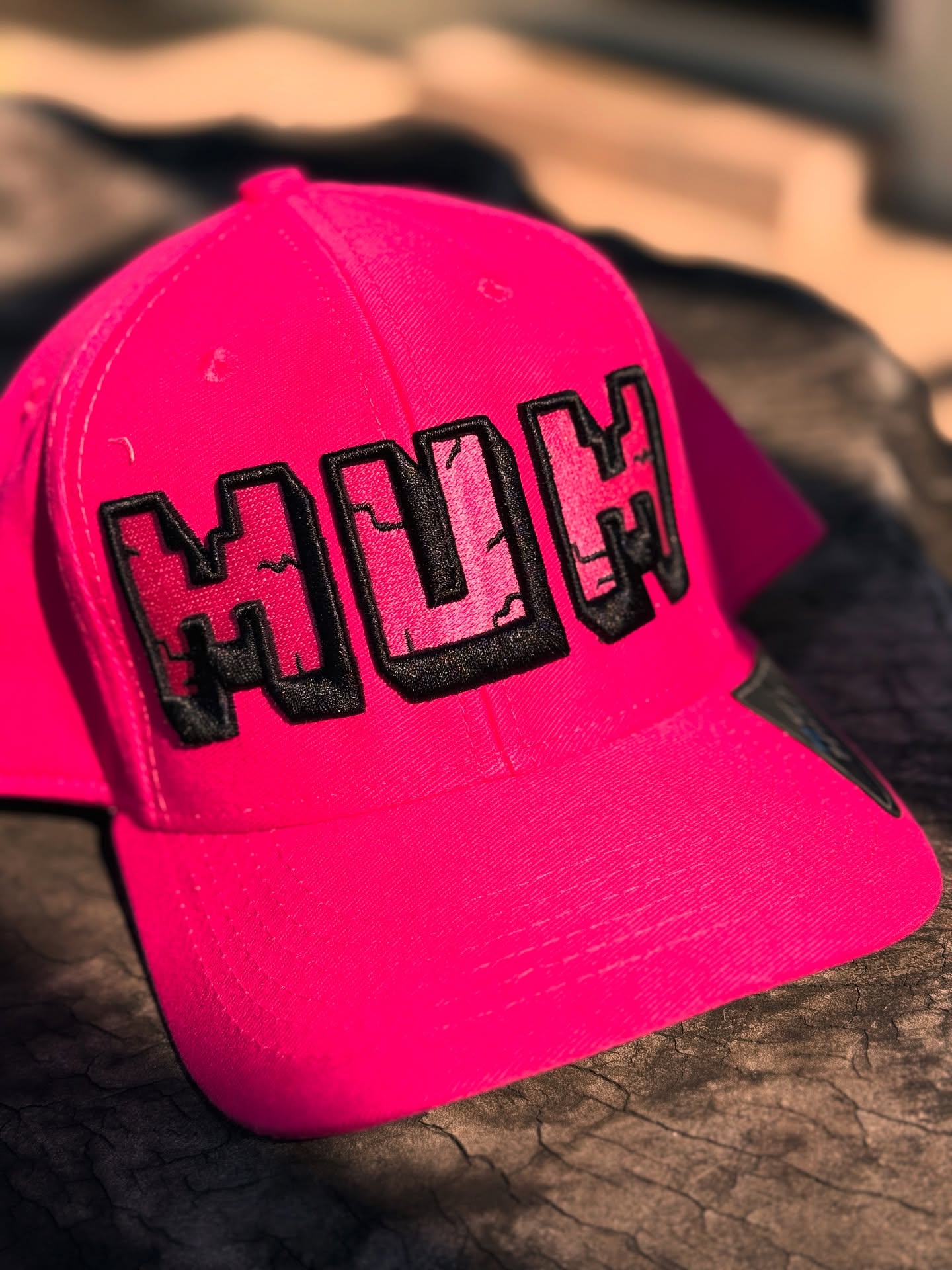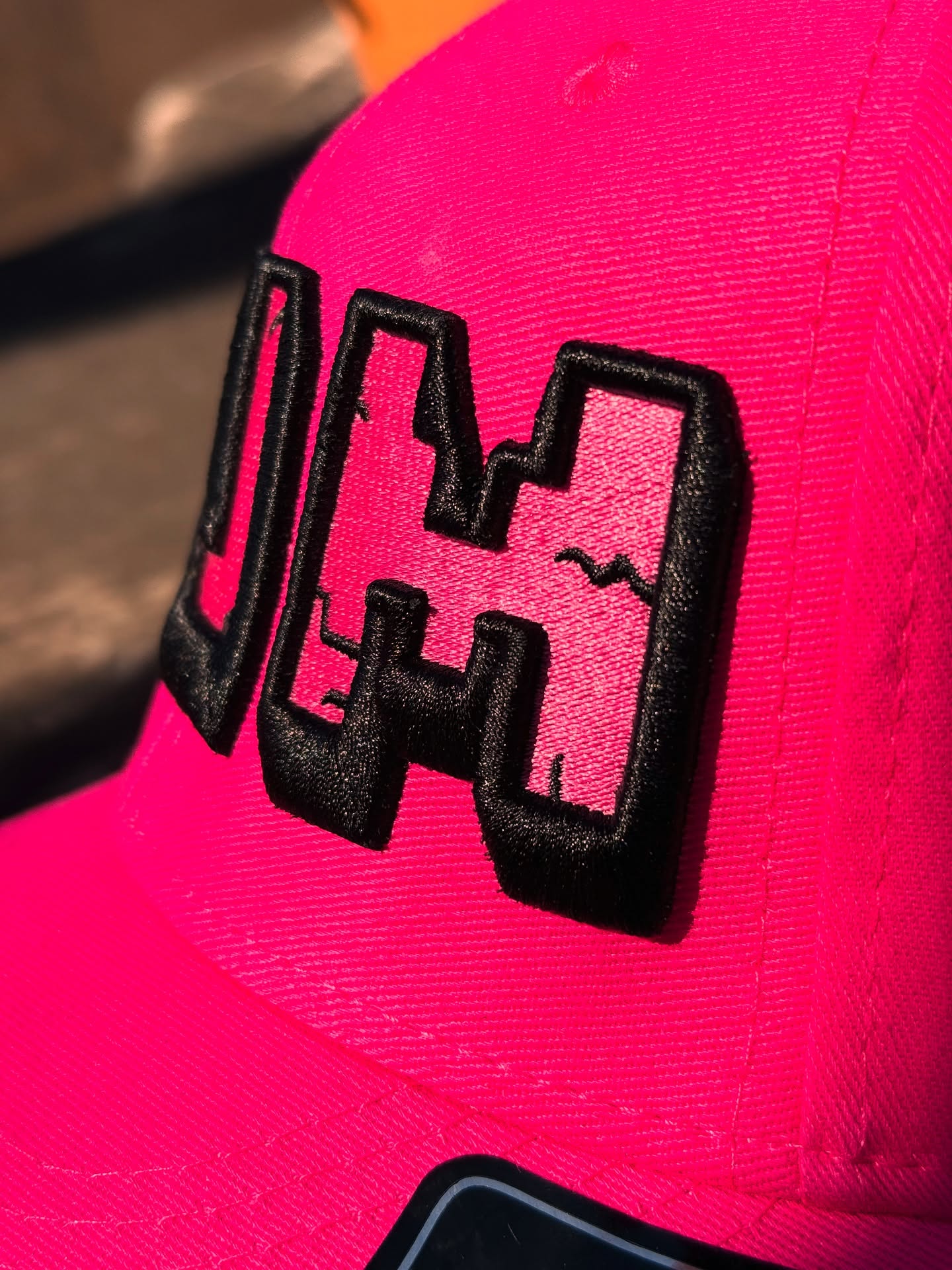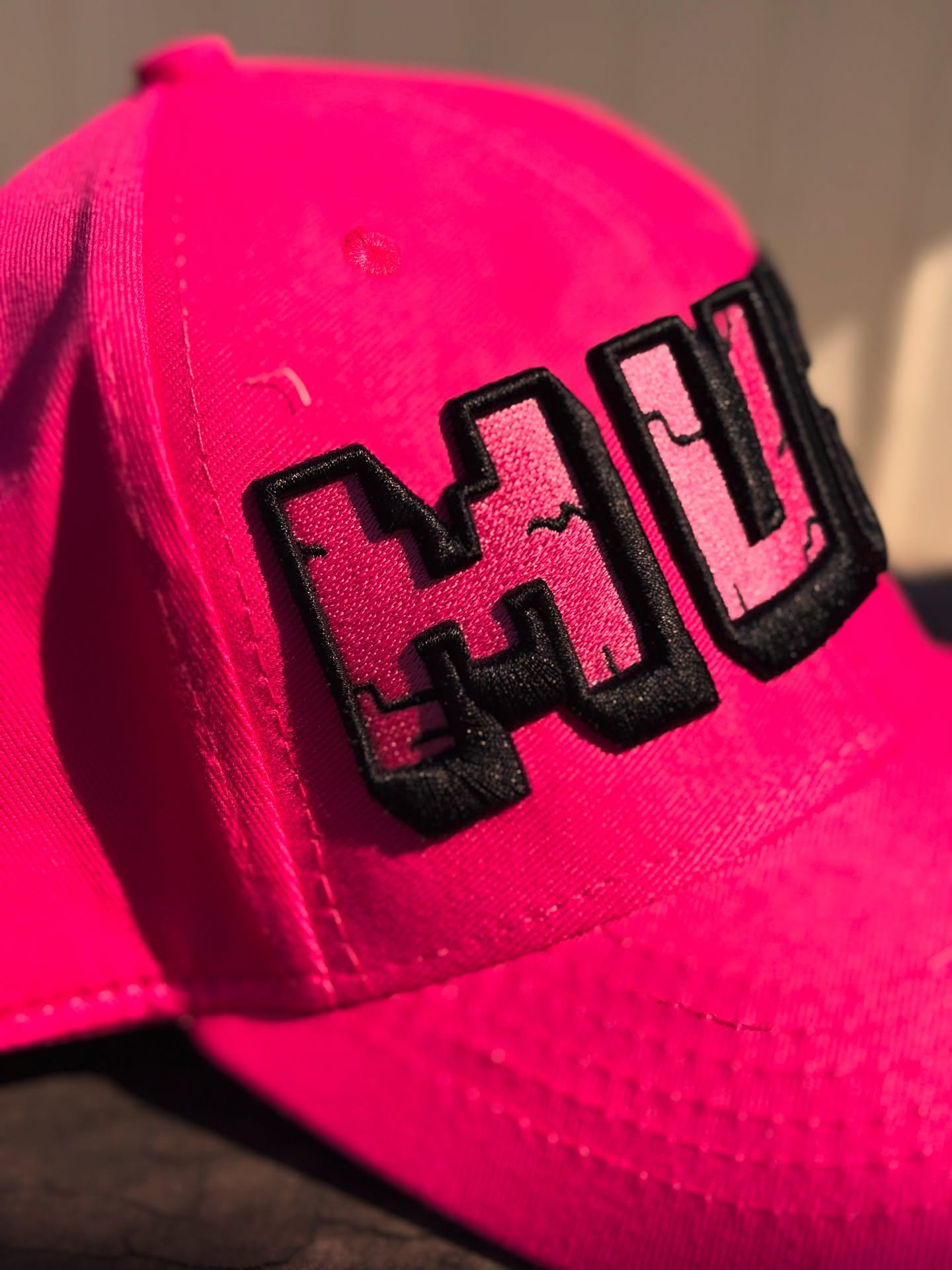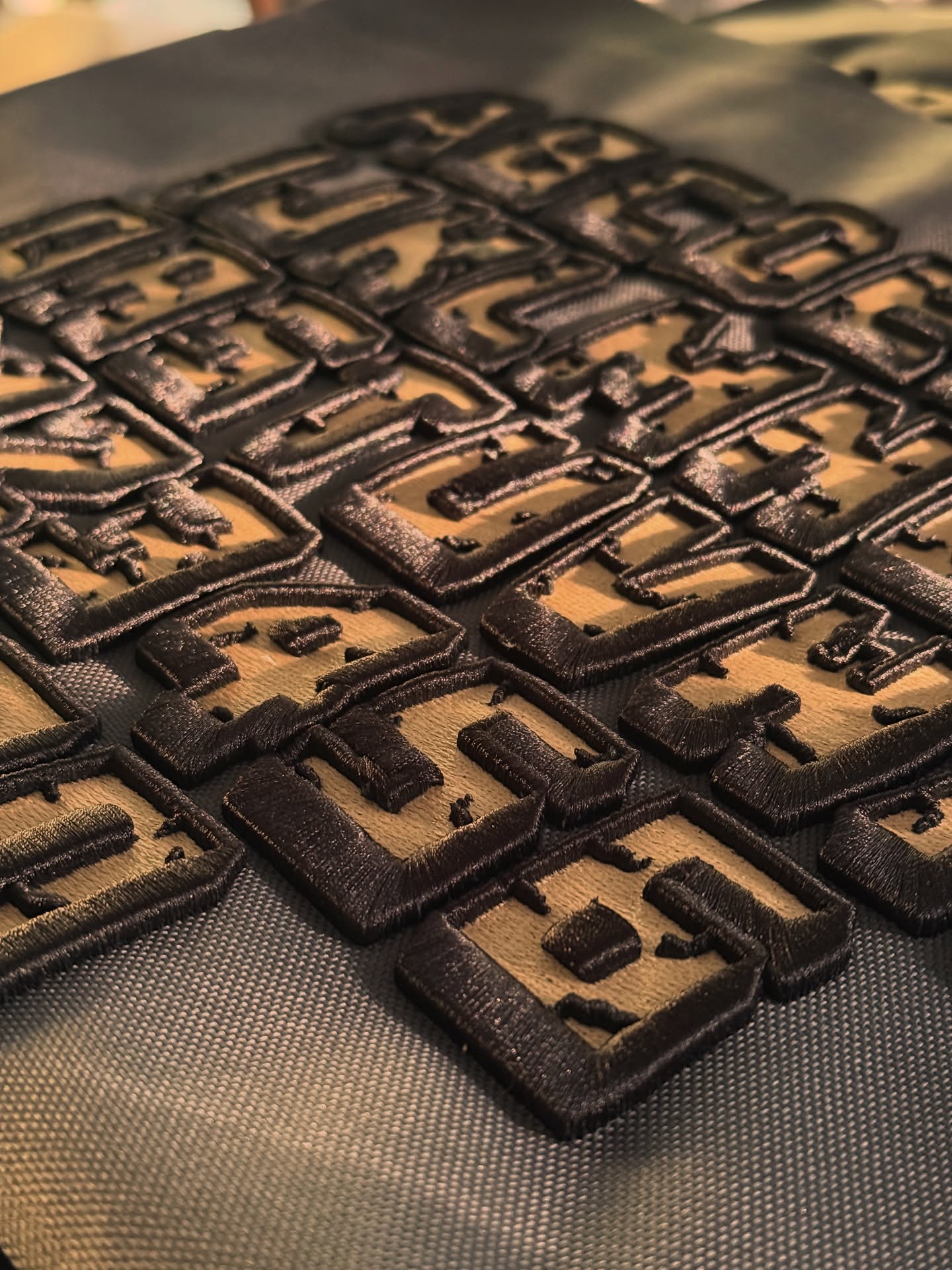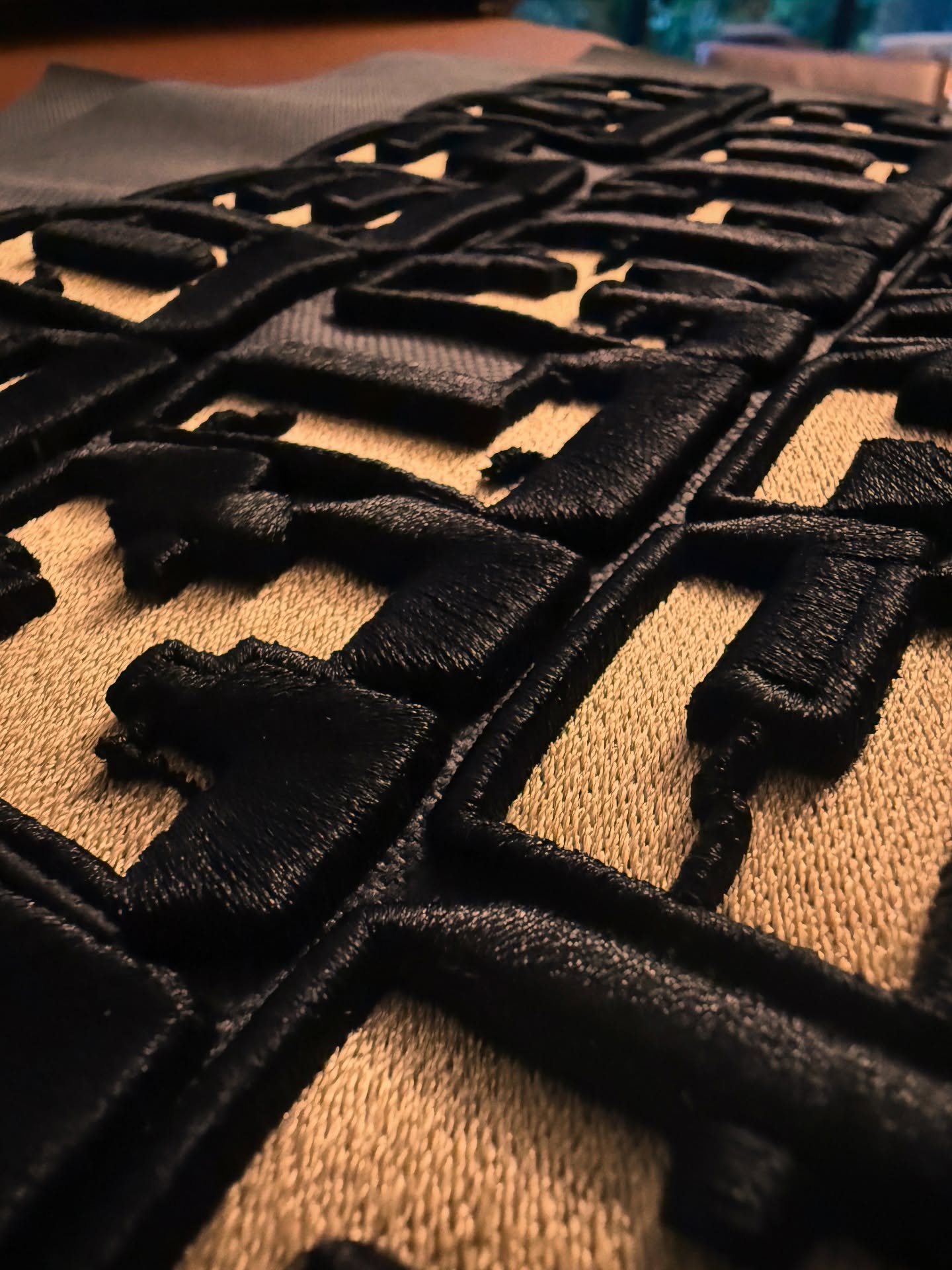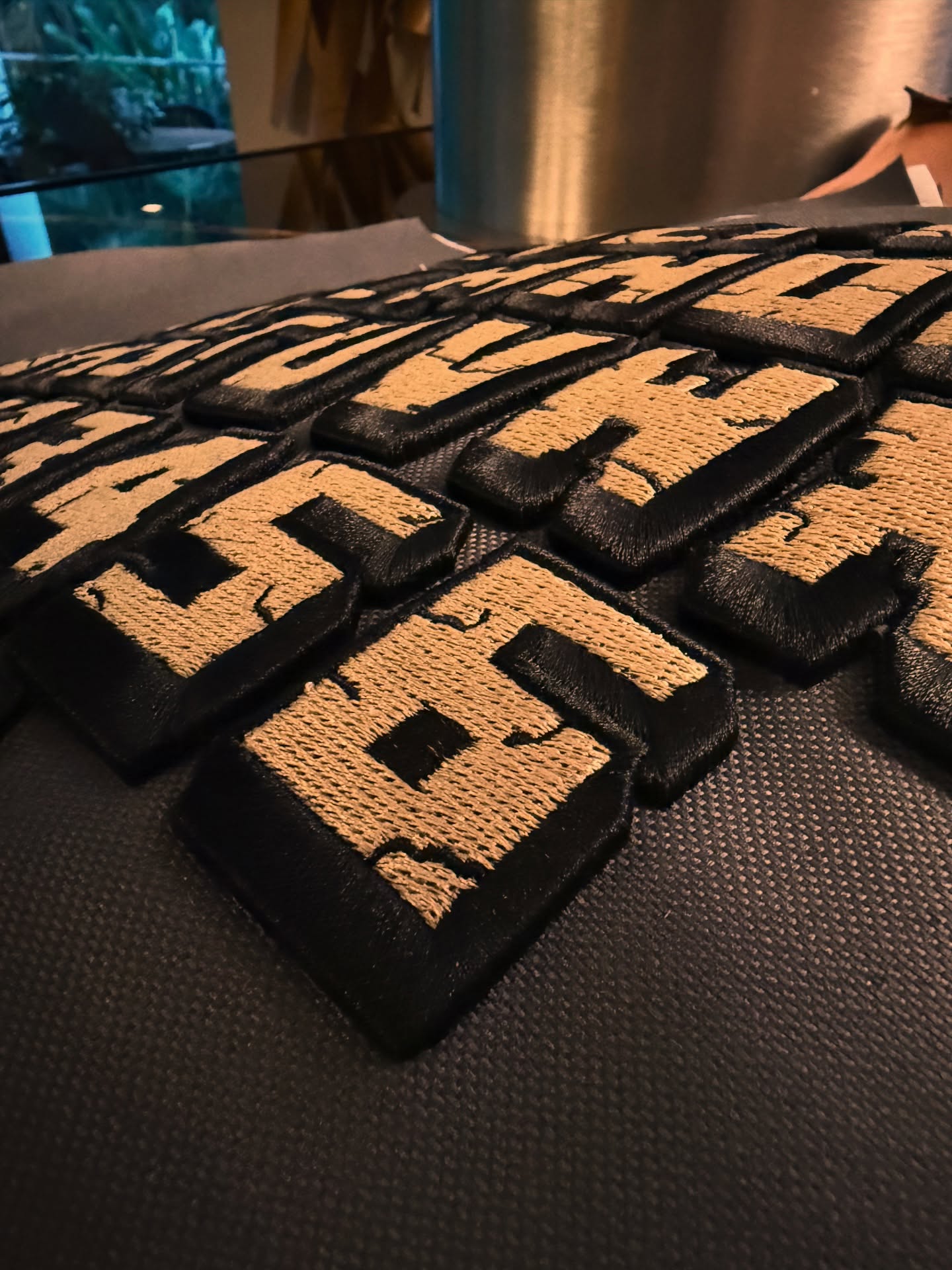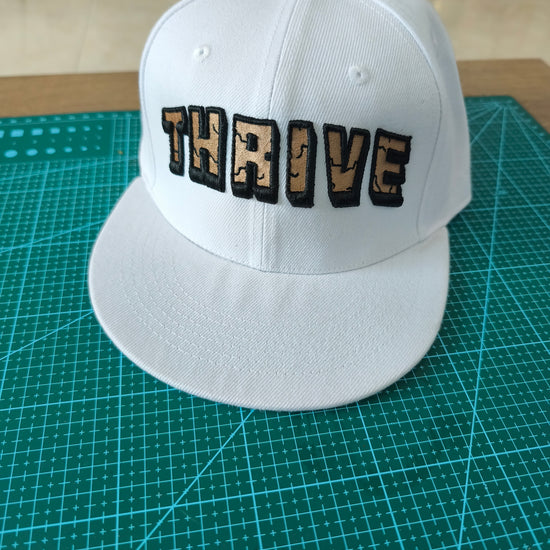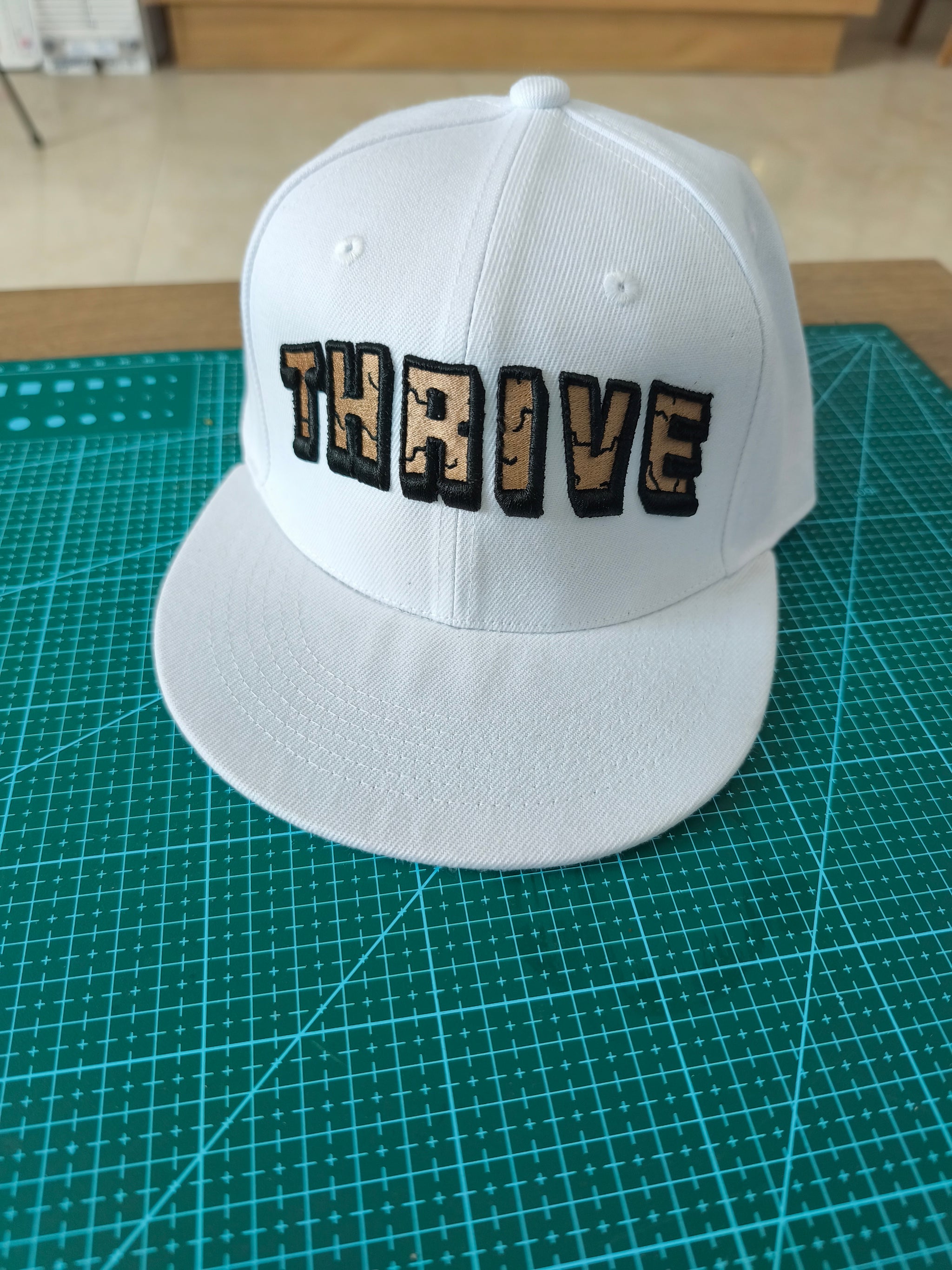
Minecraft 3D Block Font for Caps
Transform dad hats & snapbacks into tactile gaming artifacts with Minecraft 3D Puff Embroidery. Our blocky pixel letters and numbers rise with industrial foam backing, engineered to conquer curved panels without cracking or flattening. Perfect for gamertags, coordinates, or faction logos that demand attention from crown to brim.
Why Caps + Minecraft Puff = Legendary Combo:
🔲 Curve-Hugging Pixels: Foam layers compress at edges so every block stays dimensional on structured/unstructured caps.
⚡️ Sweat & Sun Proof: UV-resistant threads + reinforced stitching survive LAN parties and festivals.
🧱 Instant Gamer Cred: Spot a fellow player across the room with iconic block lettering.
🎮 Low-Profile Bulk: Foam trimmed to 3.5mm ensures comfort without sacrificing "pop."
Hat-Ready Customization:
• Gamertags • Server IPs • Icon Coordinates (0,0) • "Respawn" Tags • Creeper Faces 💥
Choose Your Texture Pack:
Standard Cotton (Matte In-Game Vibes) or Metallic Thread (Netherite Mode ✨)